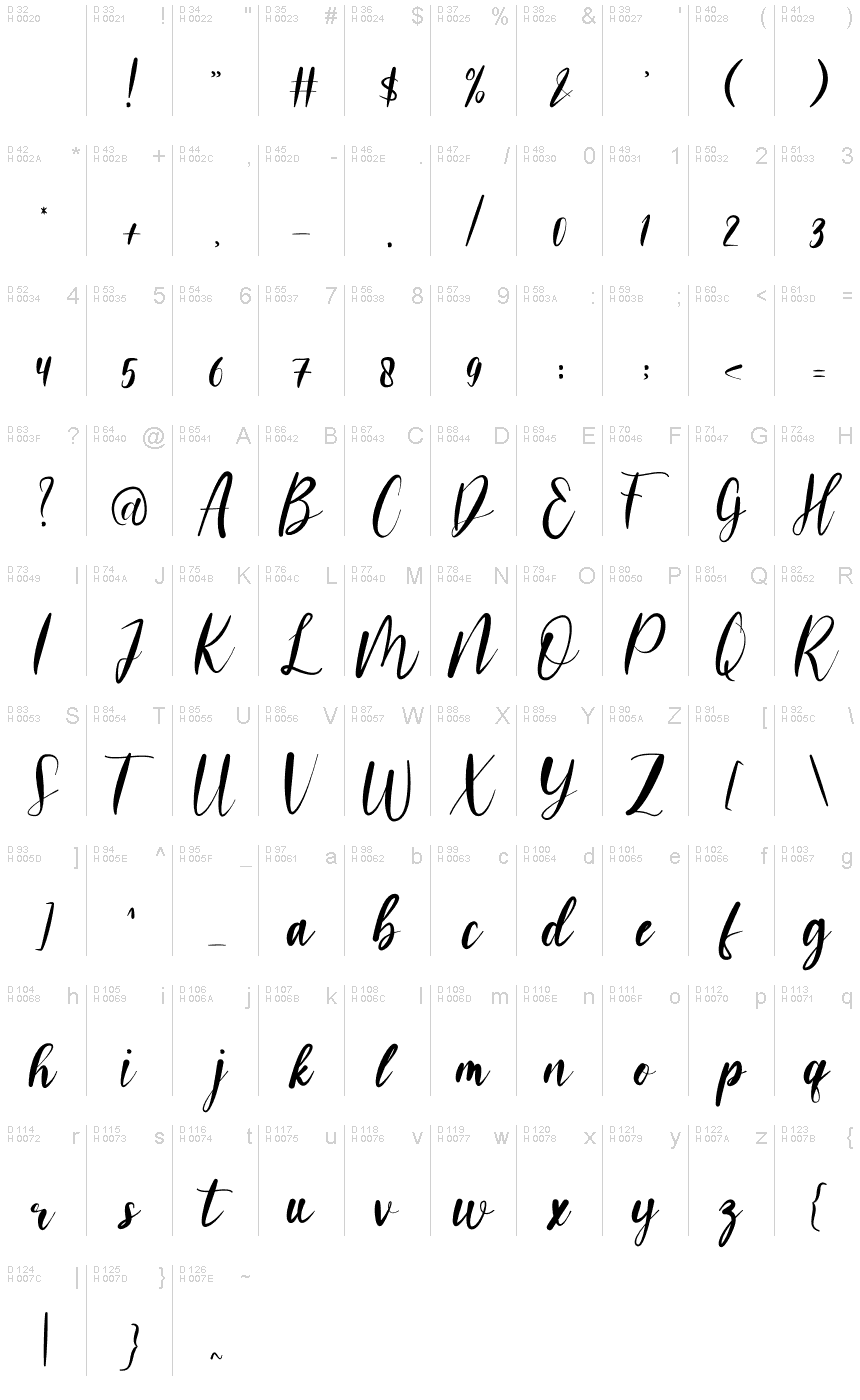
Nacowela
Nacowela, a charming handwritten font created by M Ridwan, exudes a whimsical and personal touch to any design project.
With its graceful curves and playful strokes, this font brings a sense of authenticity and warmth to invitations, greeting cards, and wedding stationery. Its versatility extends beyond the realm of personal events into the world of branding and advertising. Nacowela is an ideal choice for boutique businesses seeking to convey a friendly and approachable image.
This font captures attention with its unique character, making it perfect for logo designs and packaging that aim to stand out from the crowd.